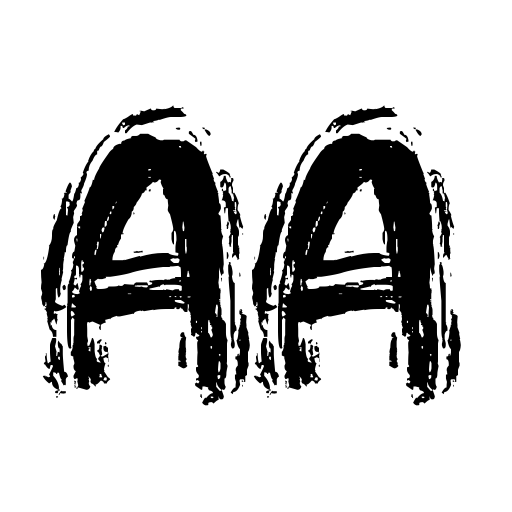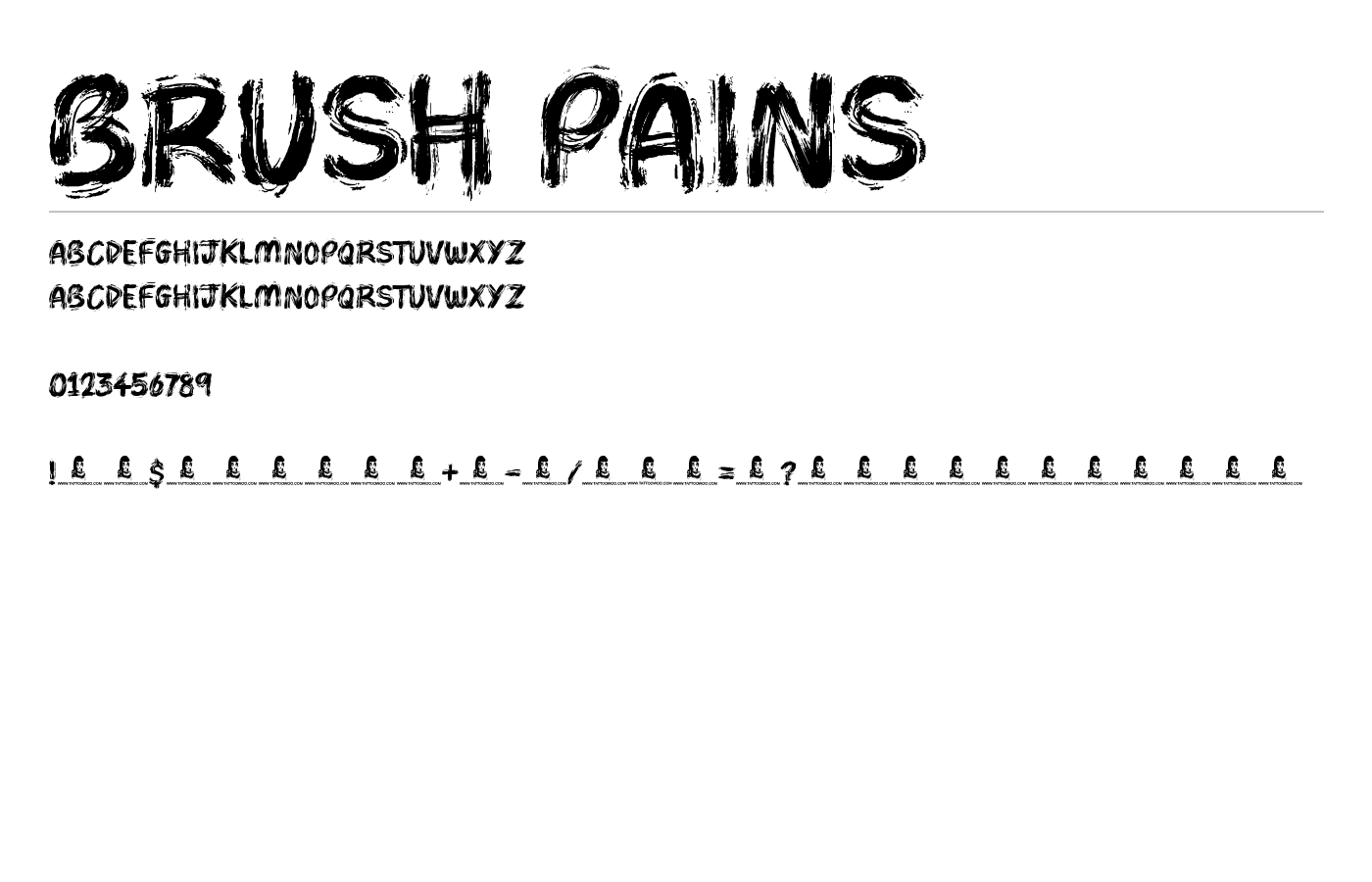
Brush Pains is a bold, hand-painted brush script font with a rough, textured stroke that gives it an energetic and raw look. Its irregular edges and dynamic brush marks make it perfect for edgy, creative projects or designs seeking an informal, artistic vibe. This font works great for posters, logos, and expressive headlines where a strong, handcrafted personality is desired.
Brush Pains Font
About Brush Pains Font
| Font family | Brush Pains Font |
| Designer | Jonathan Stephen Harris |